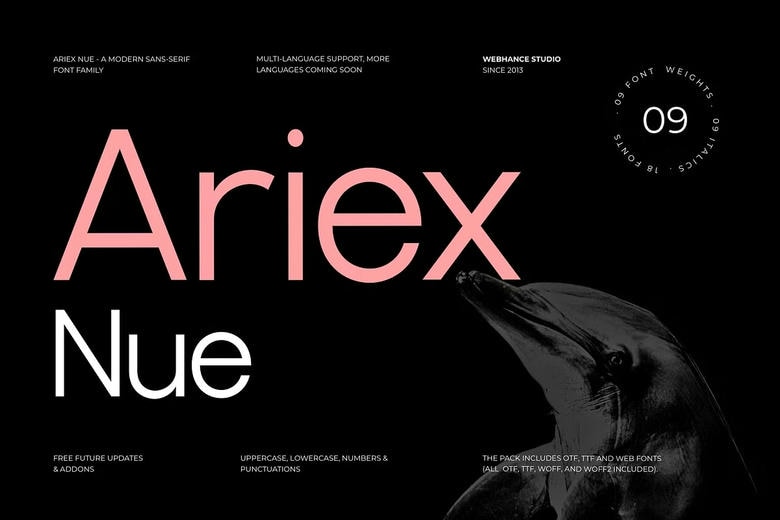
Ariex Nue Font Family
Ariex Nue is a modernized typeface of the sans-serif family that is clear, structured, and balanced in visuals. Its sleek lines and its economy of form offer a self-assured and professional appearance in all kinds of design output.
The family includes 9 multifunctional weights, Thin to Heavy, and perfectly matched italics – that is, a total of 18 meticulously designed fonts. All weights are constructed with deep proportions and spacing, so that there is harmoniness of headlines, main rolling body and the large scale layouts.
Ariex Nue is ideal in branding, logos, editorial design, websites, posters, packaging, social media graphics, video titles, YouTube thumbnails and digital content. It is print as well as screen optimized, and it has a crisp readability and a smooth outlook regardless of the environment.